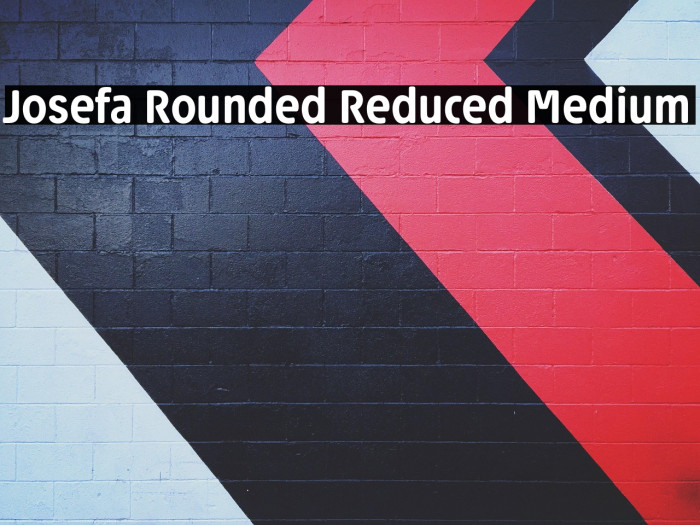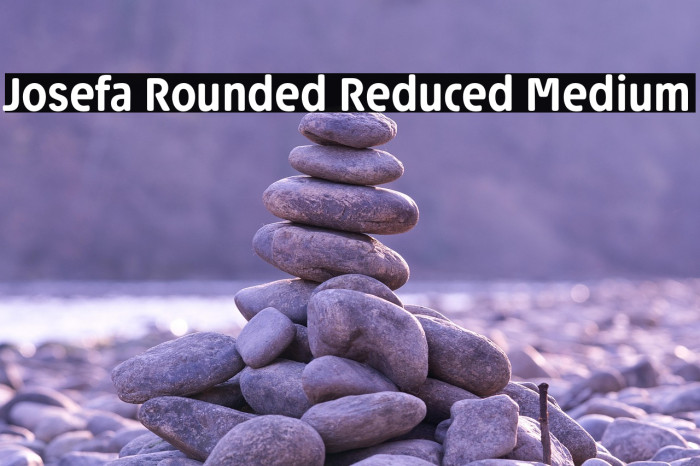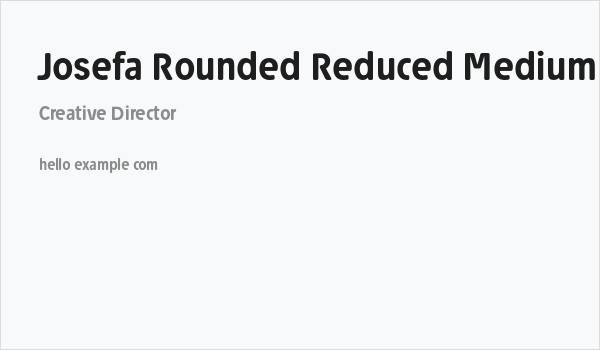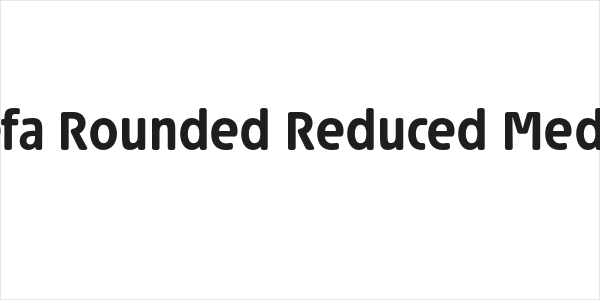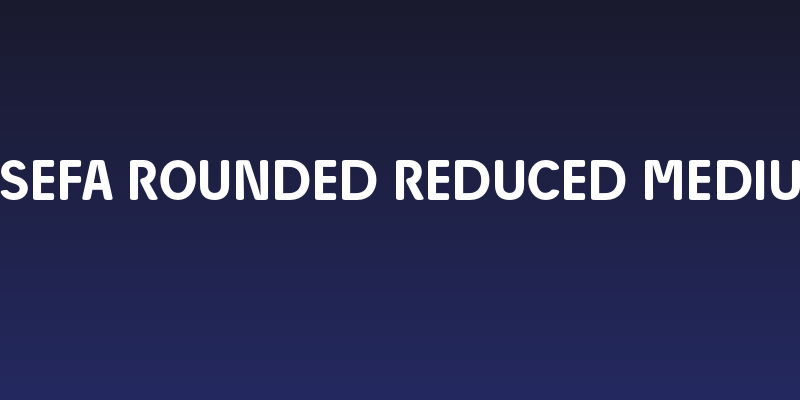
Josefa Rounded Reduced Medium Font
Josefa Rounded Reduced Medium Description
This typeface features a clean, rounded design that exudes a friendly and approachable vibe. The characters are well-proportioned with smooth curves, giving it a modern and sleek appearance. The rounded edges soften the overall look, making it suitable for a variety of applications where a warm and inviting feel is desired. The uniform stroke width ensures readability and clarity, making it ideal for both digital and print media. Its simplicity and elegance make it versatile for branding, advertising, and user interfaces.
| Use Case | Headlines, Body text, Logos |
| Proposed Projects | Ideal for branding, advertising, user interfaces, and any project requiring a modern and approachable look. |